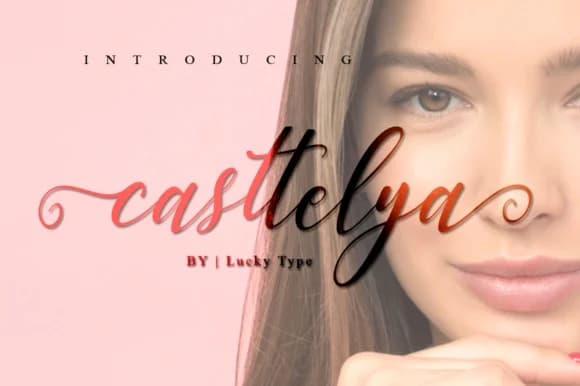
1 / 7About Casttelya Font
Casttelya by luckytype.font is a flowing calligraphy script with distinctive character and graceful movement throughout. The font's dancing baseline creates a playful energy that brings personality to every word, while its smooth, connected letterforms maintain excellent readability even at smaller sizes. Its relaxed, spirited character makes Casttelya particularly effective for connecting with audiences through authentic, handwritten-style design that feels personal without sacrificing legibility. Casttelya excels across diverse applications where character and authenticity matter most. Wedding invitation suites become instantly more elegant with its expressive, flowing letterforms. Event stationery, from RSVP cards to thank-you notes, gains a personalized quality that guests truly appreciate. Small business owners in lifestyle and wellness sectors find it ideal for conveying approachability: boutique skincare packaging, artisan bakery labels, handmade jewelry branding, and personalized gift tags all benefit from its warmth. On social media, Casttelya stands out in story graphics and feed posts, giving brands an authentic voice that cuts through digital noise. The script's thoughtful construction performs well across both digital and print applications without requiring extensive manual adjustment. Whether designing invitations, custom merchandise labels, or digital content, this versatile script adapts seamlessly to your vision. Get Casttelya on Creative Fabrica and bring expressive handwritten elegance to your creative projects.
Casttelya Font is a script font that shines as a display or heading face. Pair it with a clean sans-serif or serif font for body text β the contrast creates a clear hierarchy while the two styles stay balanced and easy to read.